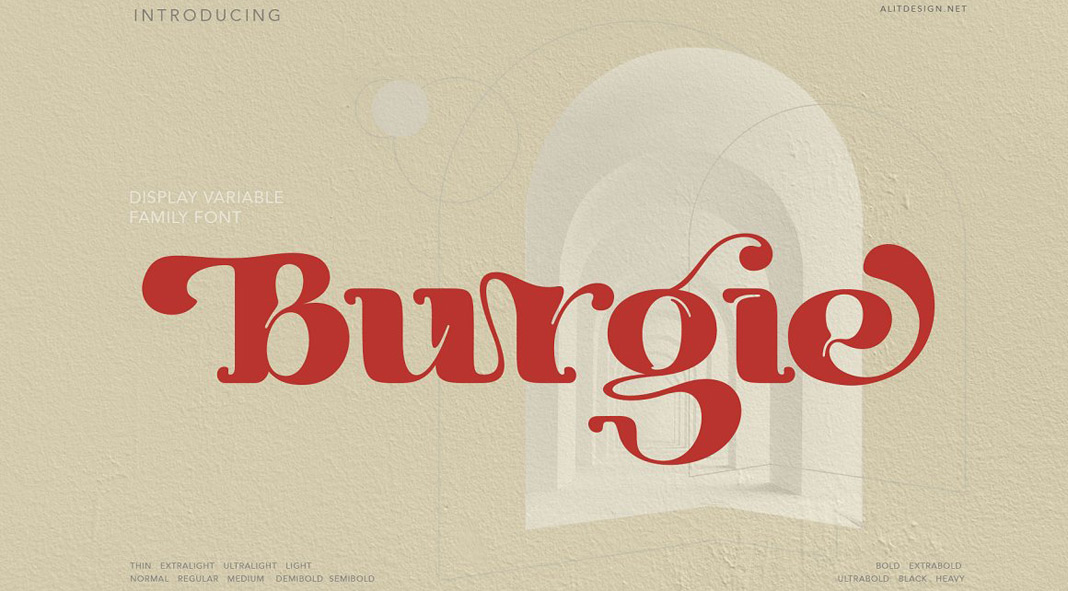
Burgie, a kind of quirky and fun serif font family that comes with plenty of swash alternates.
If you are looking for a display font in a groovy and bold style, Burgie might be a great option for you. Equipped with numerous weights plus a wide range of swash alternates, ligatures, and other typographic features, the Burgie font family will help you to create unique and distinctive designs. The font combines elegance with this intended quirkiness and some unique styles. It is well suited for a great variety of designs such as classic themes, retro design, posters, and more. Just click on one of the following links to get further information about all features.